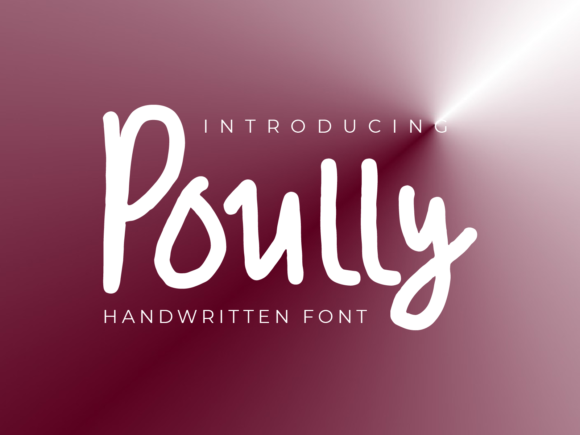
Poully Font
About Poully Font
Poully embodies fun, quirkiness and authenticity. This enchanting handwritten font will turn any creative idea into a true standout.